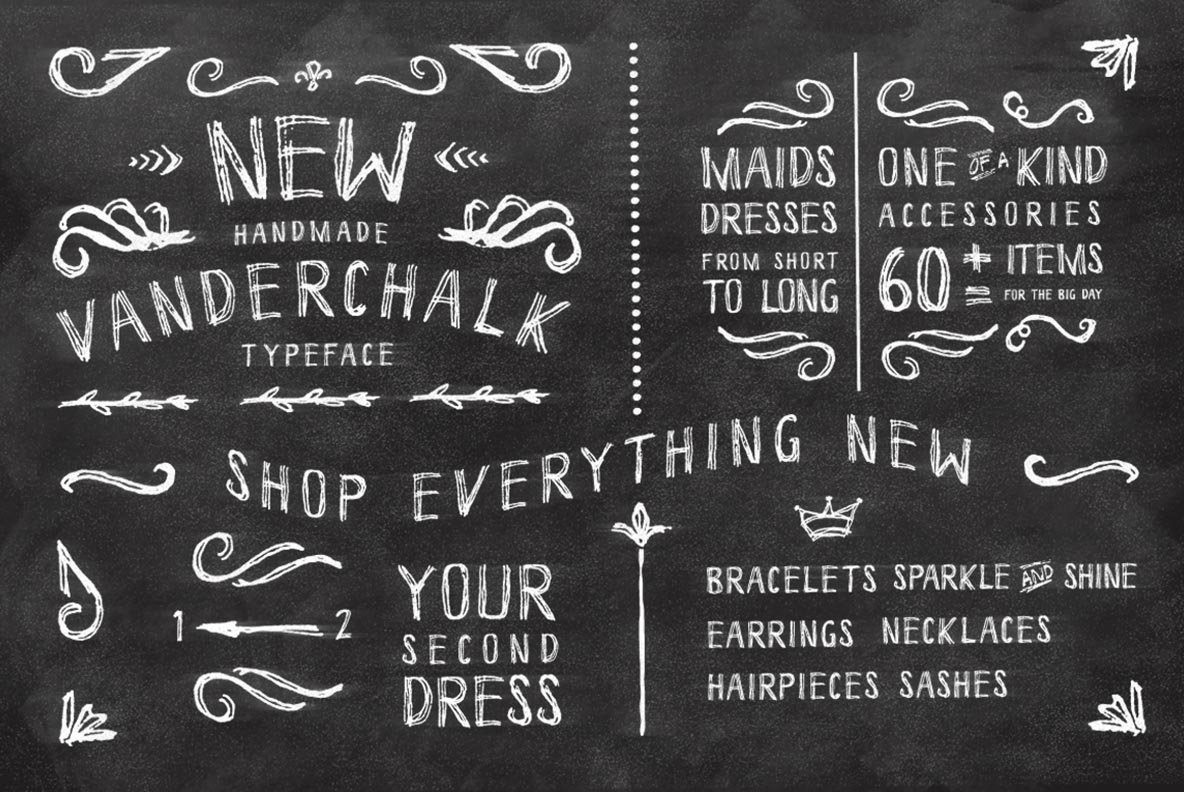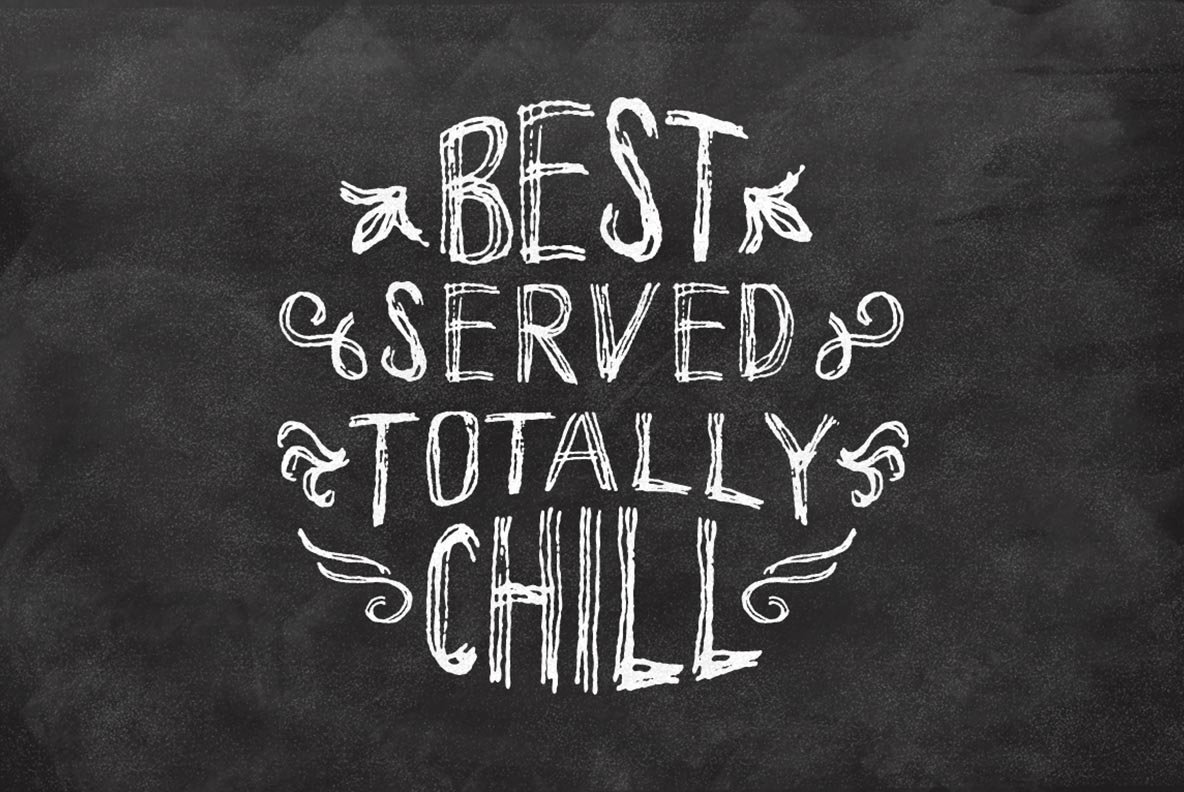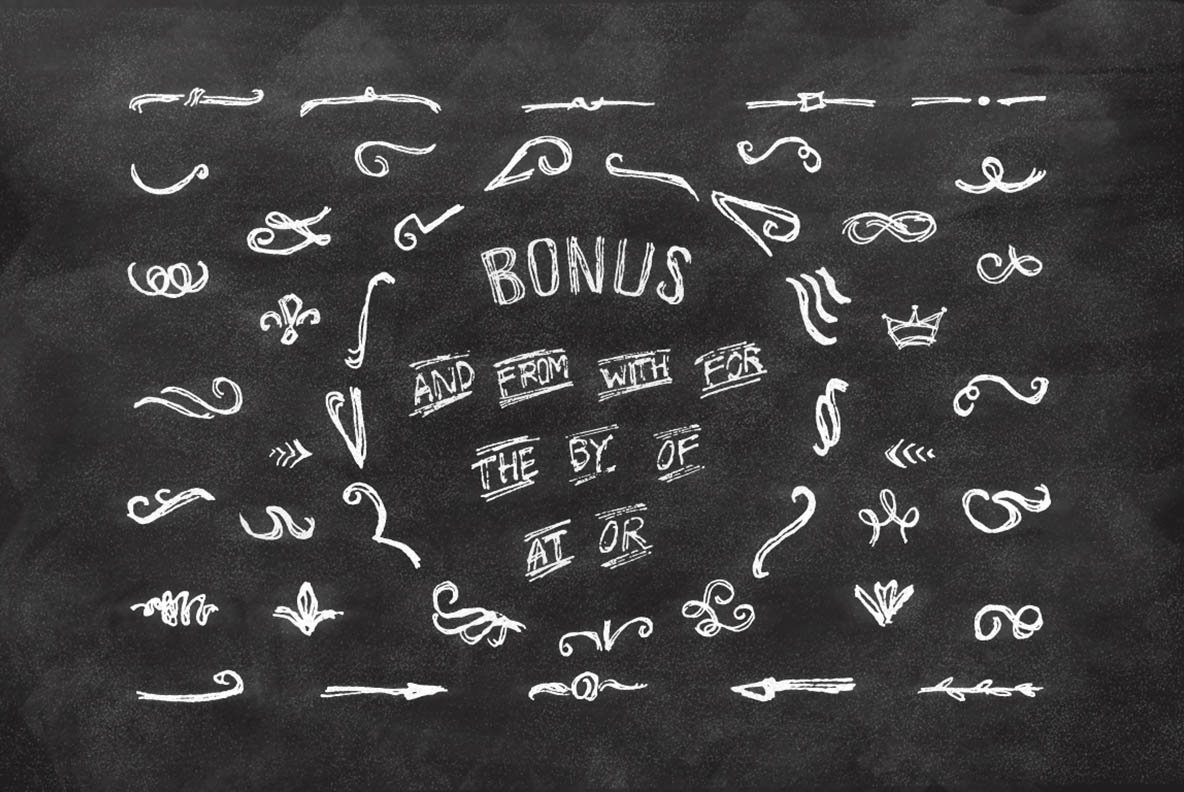
Vanderchalk Font
Vanderchalk is a distressed and chalk style font designed and published by Panji Nugraha. This release also contains a bonus vector elements design file (available as AI CS3 + EPS CS3).